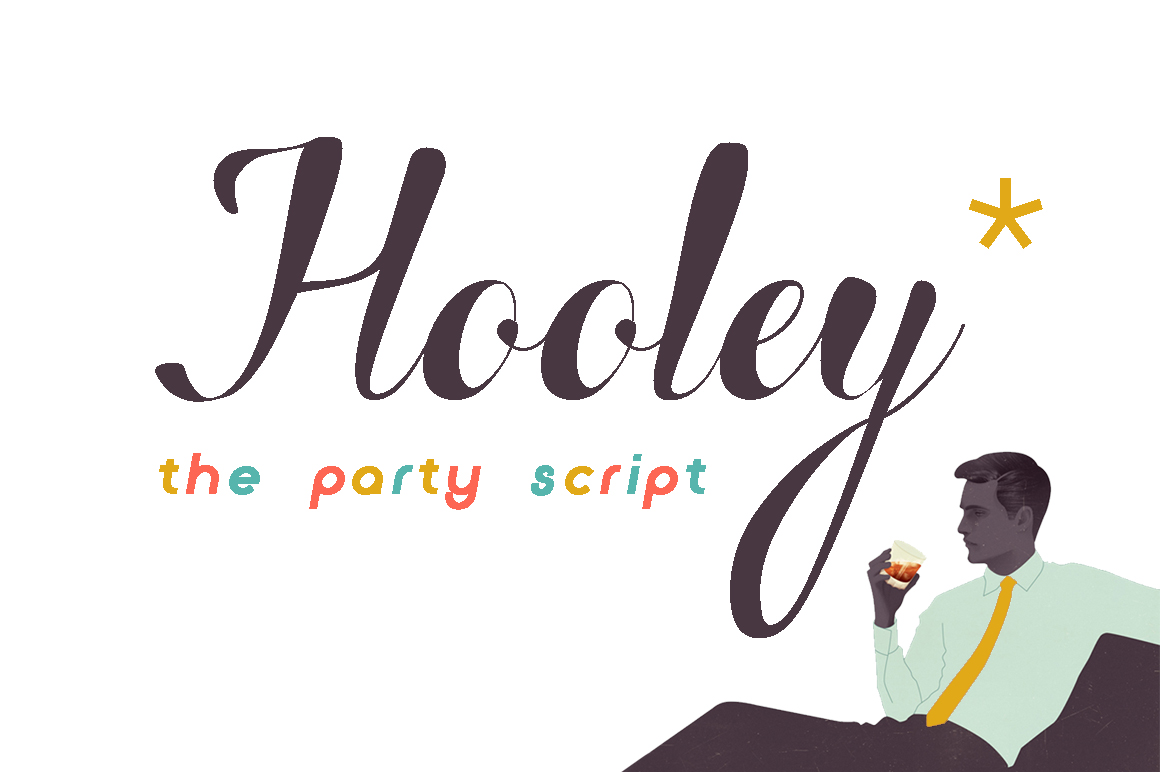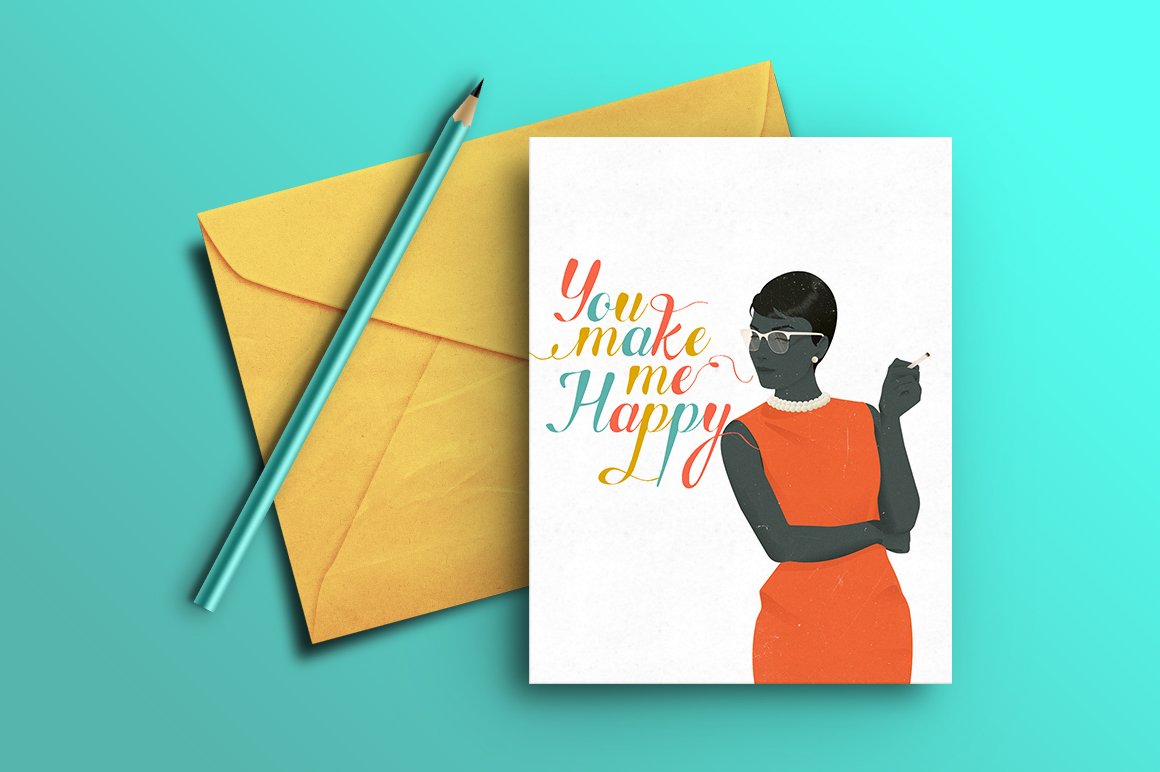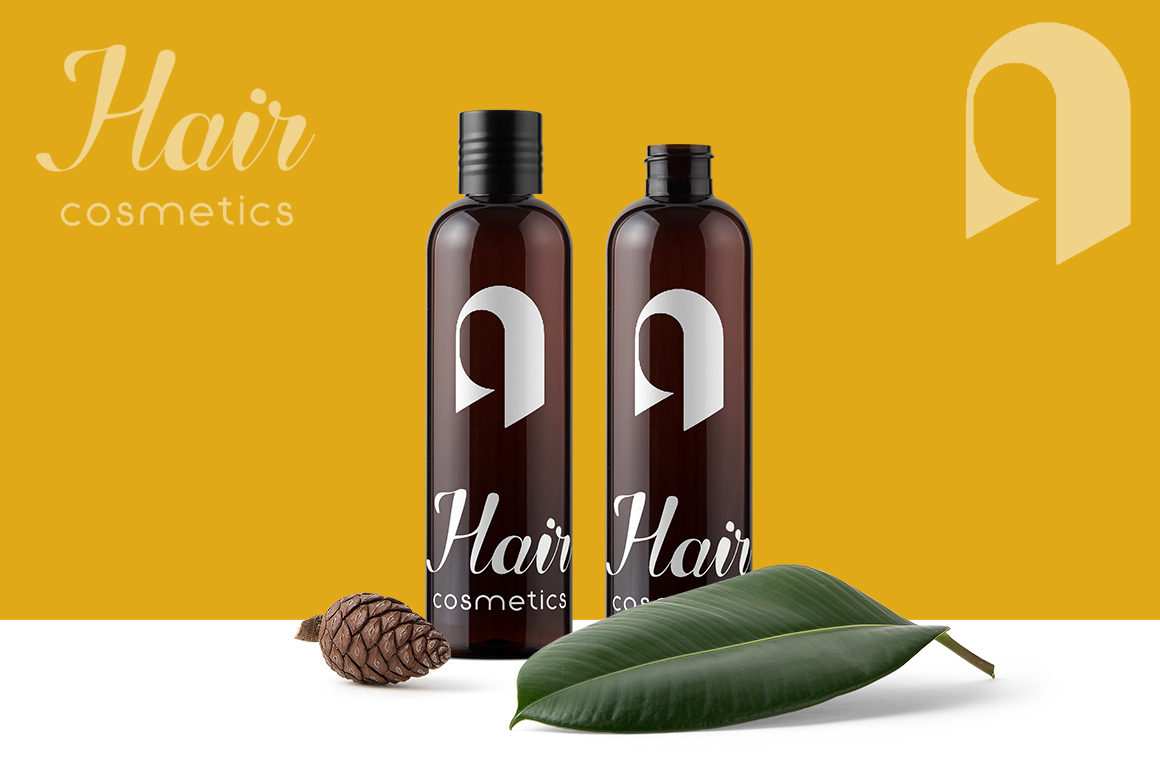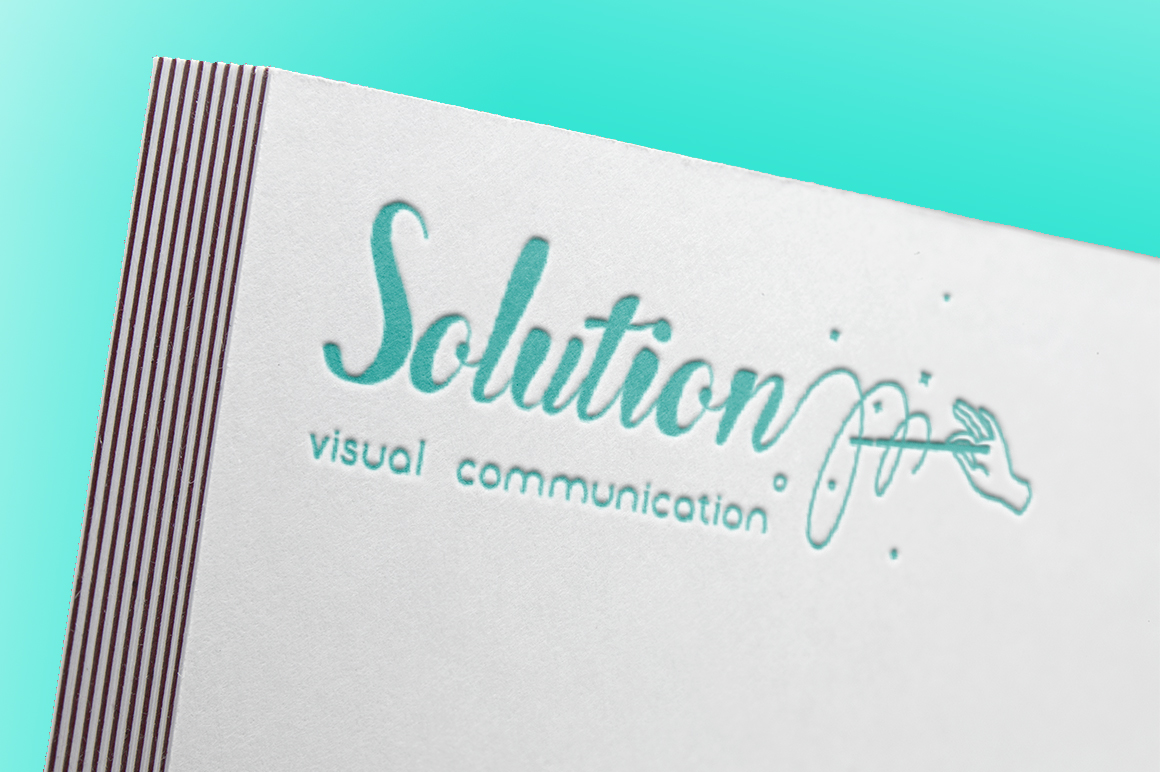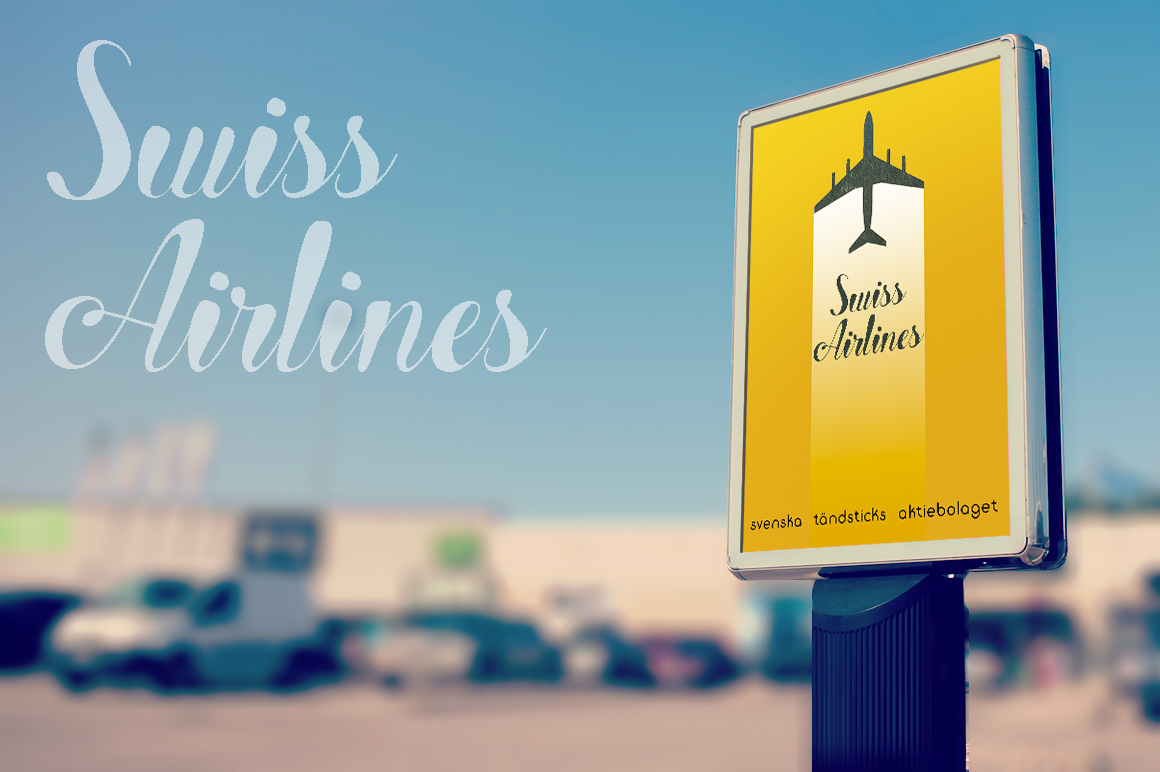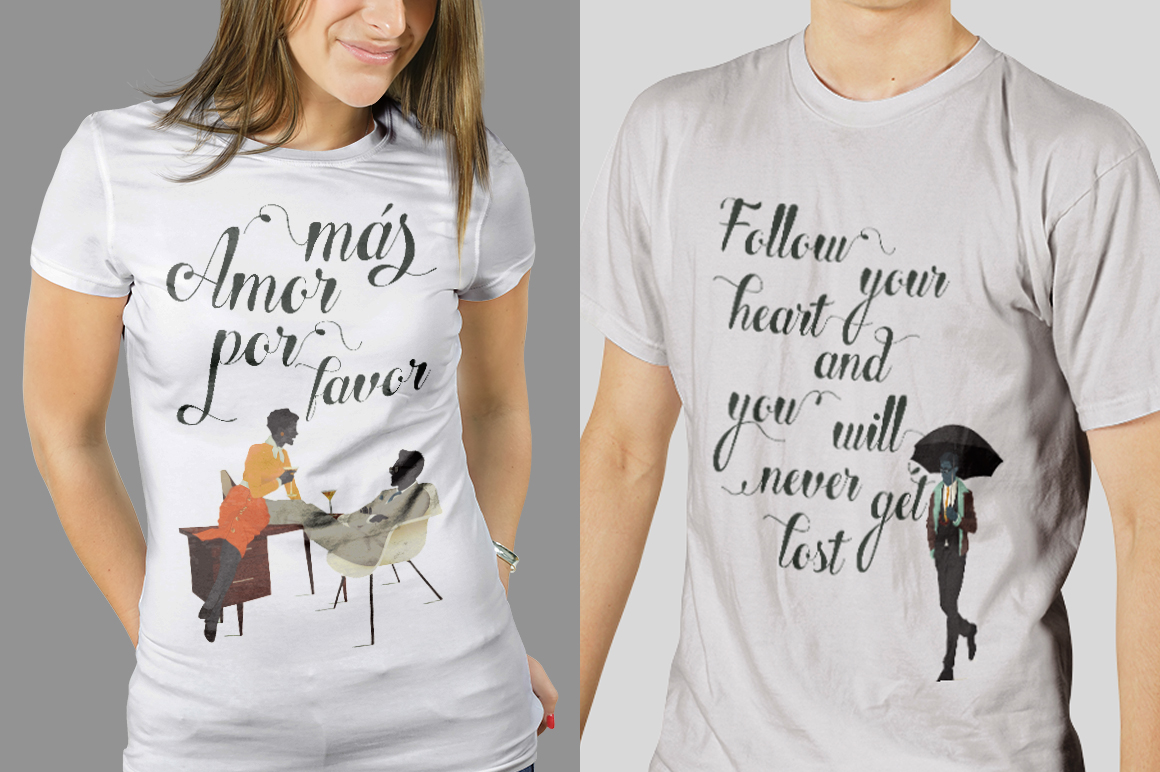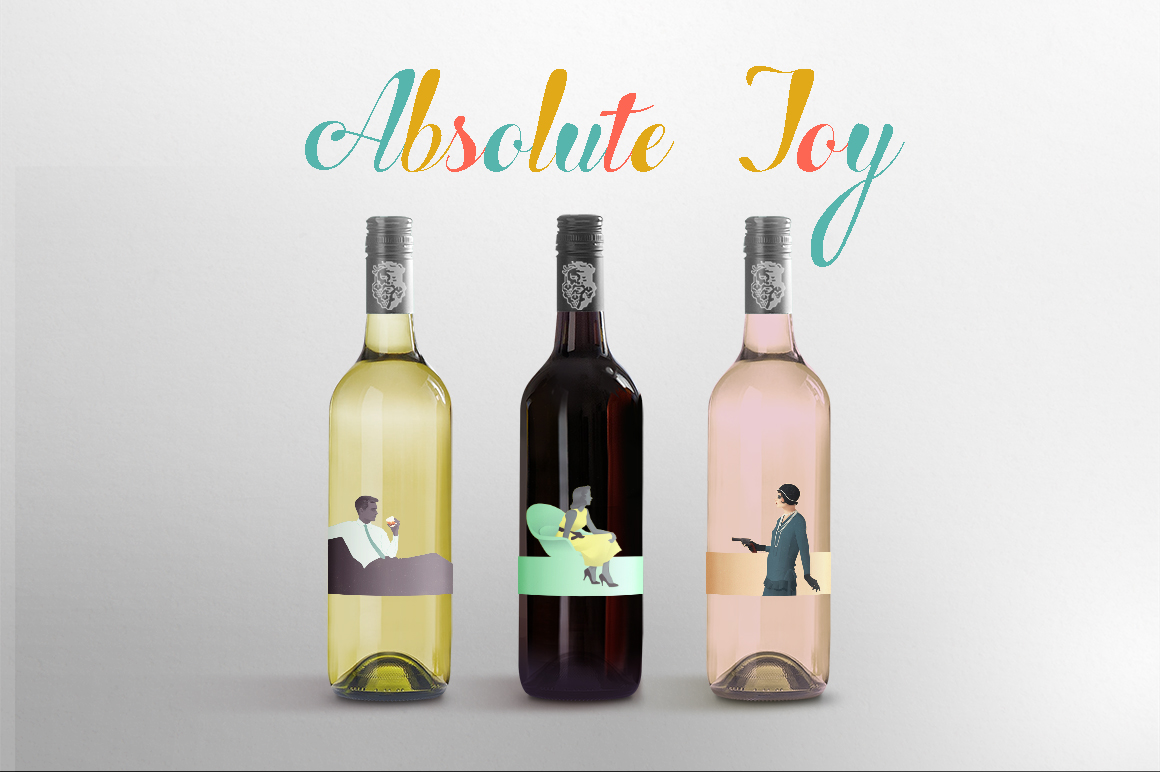
Hooley Font
About Hooley Font
Hooley, the party script is here! A stunning font that has been created for branding, advertisement, product design and other types of design.